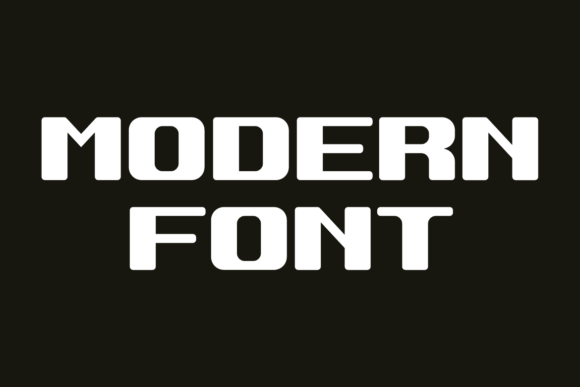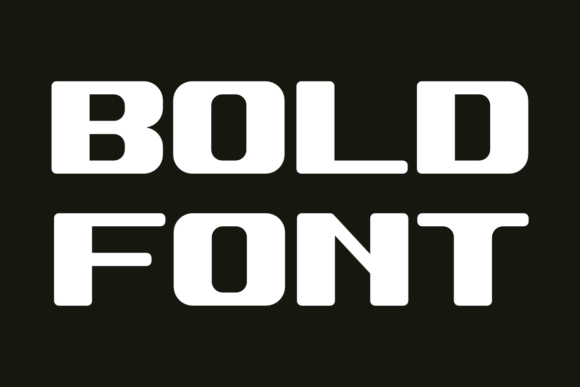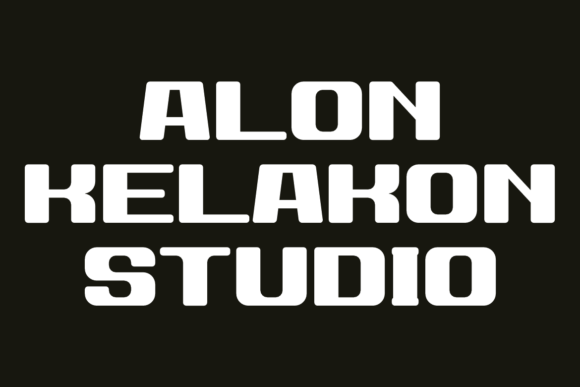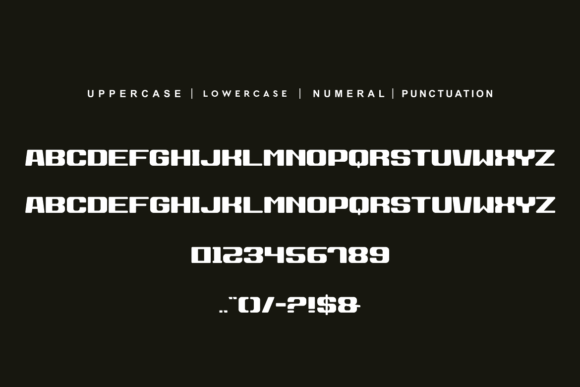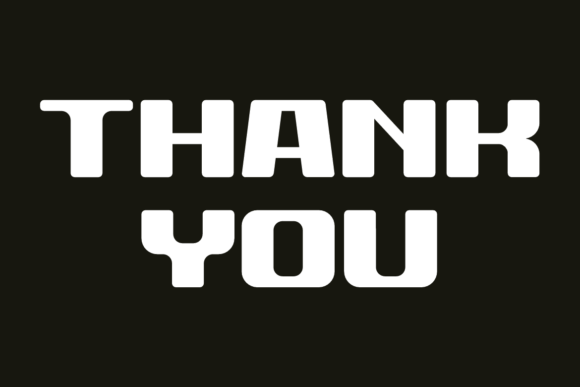
Brock Rangos Font: Elevate Your Designs with Confidence and Flair
In the world of typography, fonts play a crucial role in conveying the tone and personality of a design. For designers and crafters looking to make a statement, Brock Rangos Font is an excellent choice. This modern and bold font exudes confidence and contemporary flair, making it perfect for a wide range of design projects.
The Characteristics of Brock Rangos Font
Brock Rangos Font is distinguished by its clean lines and strong geometric shapes. These features combine to create a sleek and daring aesthetic that captures attention and commands a presence on any medium. The font’s bold and modern design makes it an excellent choice for headlines, logos, and eye-catching designs.
Why Choose Brock Rangos Font?
There are several reasons why Brock Rangos Font stands out from the crowd:
- Confidence and Flair: Brock Rangos Font exudes confidence and contemporary flair, making it perfect for designers and crafters who want to make a statement.
- Clean Lines and Strong Geometric Shapes: The font’s clean lines and strong geometric shapes create a sleek and daring aesthetic that captures attention.
- Versatility: Brock Rangos Font is versatile and can be used for a wide range of design projects, from headlines and logos to eye-catching designs.
- Sophistication: The font’s modern and bold design adds a touch of sophistication to any project.
How to Use Brock Rangos Font
Brock Rangos Font is easy to use and can be incorporated into a variety of design projects. Here are some ideas:
- Headlines: Use Brock Rangos Font to create bold and attention-grabbing headlines that set the tone for your design.
- Logos: The font’s modern and bold design makes it perfect for logos that need to make a statement.
- Eye-catching Designs: Brock Rangos Font is ideal for creating eye-catching designs that capture attention and leave a lasting impression.
- Branding: Use the font to create a consistent brand identity that exudes confidence and sophistication.
The Benefits of Using Brock Rangos Font
Using Brock Rangos Font offers several benefits, including:
- Improved Readability: The font’s clean lines and strong geometric shapes improve readability, making it easy for your audience to understand your message.
- Increased Engagement: Brock Rangos Font’s bold and modern design captures attention and increases engagement, making it perfect for designers and crafters who want to make a statement.
- Enhanced Credibility: The font’s sophisticated aesthetic enhances credibility and adds a touch of professionalism to any project.
Tips for Getting the Most Out of Brock Rangos Font
Here are some tips for getting the most out of Brock Rangos Font:
- Experiment with Different Sizes: Experiment with different sizes to find the perfect fit for your design.
- Pair with Other Fonts: Pair Brock Rangos Font with other fonts to create a unique and visually appealing design.
- Use in Combination with Images: Use the font in combination with images to create a striking and effective design.
Brock Rangos Font is a modern and bold font that exudes confidence and contemporary flair. With its clean lines and strong geometric shapes, it captures attention and commands a presence on any medium. Whether used for headlines, logos, or eye-catching designs, this font’s sleek and daring aesthetic adds a touch of sophistication to any project. By incorporating Brock Rangos Font into your design, you can elevate your work and make a lasting impression on your audience.
In conclusion, Brock Rangos Font is an excellent choice for designers and crafters looking to make a statement. Its versatility, sophistication, and bold design make it perfect for a wide range of design projects. So why not give it a try and see how it can elevate your designs?